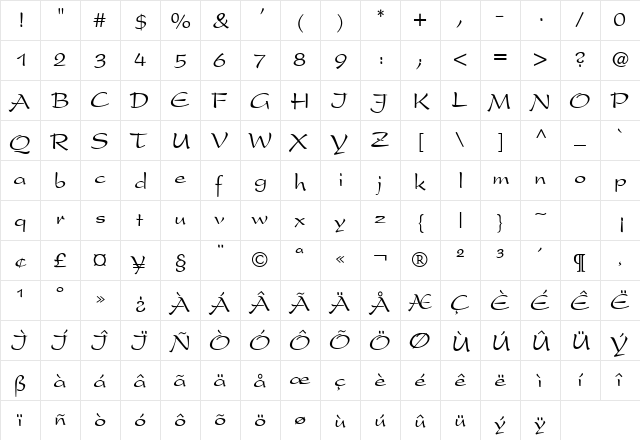
Precidio Normal
Design Context for Precidio Typeface
Precidio is a composed and adaptable typeface that performs quietly and consistently across a wide range of design contexts.